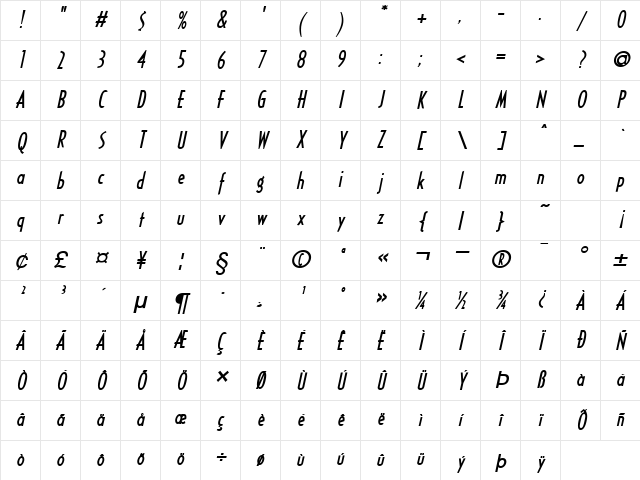
Southwestern Bold Italic
Southwestern Family
Southwestern Bold Italic
Complete Southwestern Bold Italic glyph index. Displaying only characters natively supported by Southwestern Bold Italic font.
Design Context for Southwestern
Southwestern echoes the hand-painted signage and woodblock typography of the American frontier, with a warm, rugged personality. The slanted form adds forward momentum and visual energy. Its bold stroke weight gives it real presence on the page.
Font Pairing: Combine Southwestern with a simple slab or neutral sans - period-accurate companions reinforce the vintage feel without competing for attention.
Pro Tip: Use Southwestern for short, impactful bursts of text - it shines in poster headlines and product names rather than extended copy.